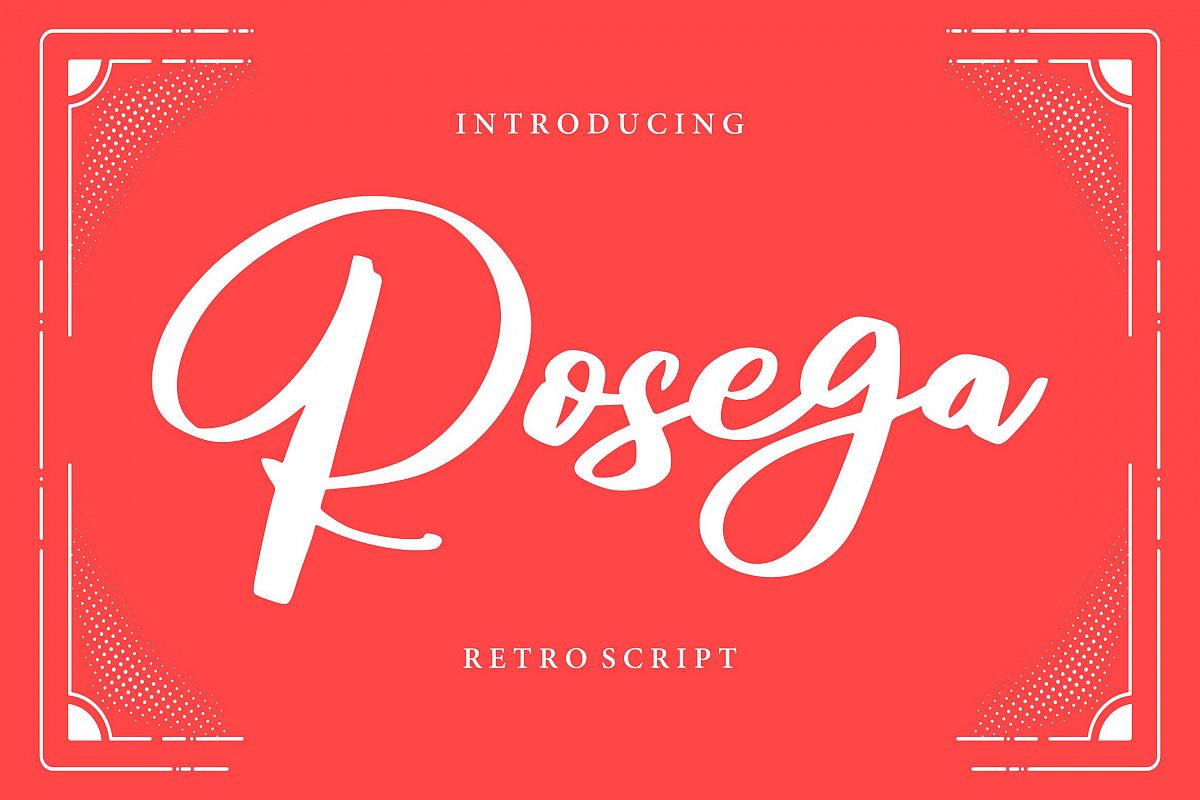
Rosega | Retro Script Font
Rosega
**Rosega | Retro Script Font** with a calligraphy style, So beautiful on invitation like greeting cards, branding materials, business cards, quotes, posters, and more!
* Tons of glyphs
* Alternates and Ligatures
* Fonts include **Multilingual Support**